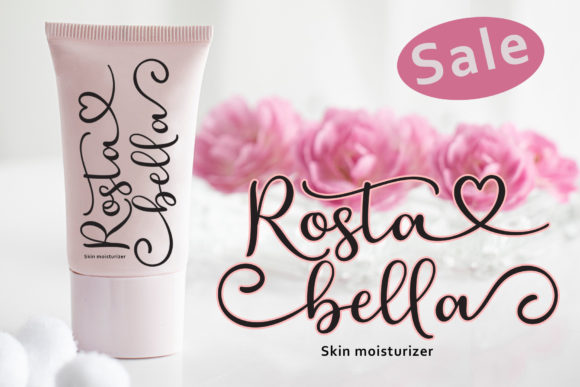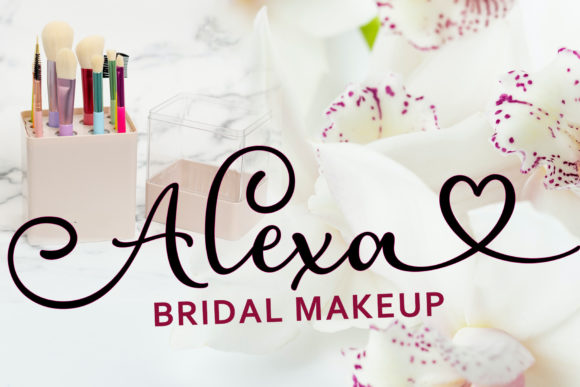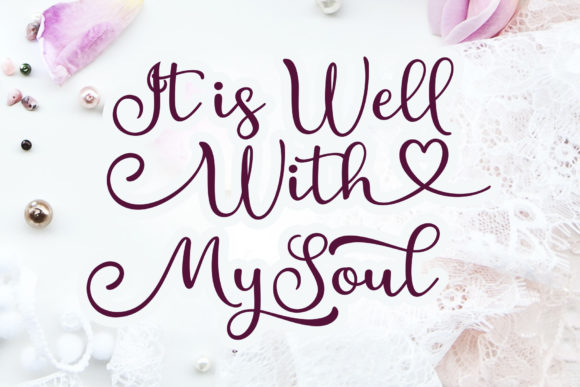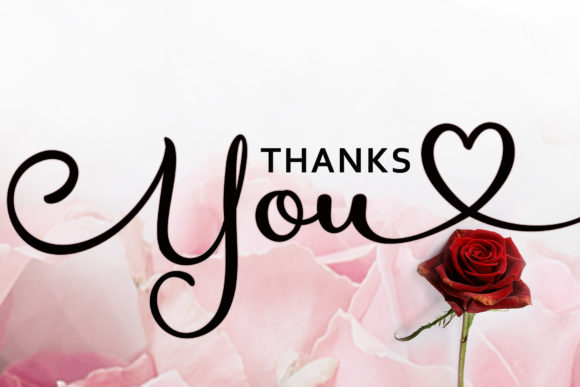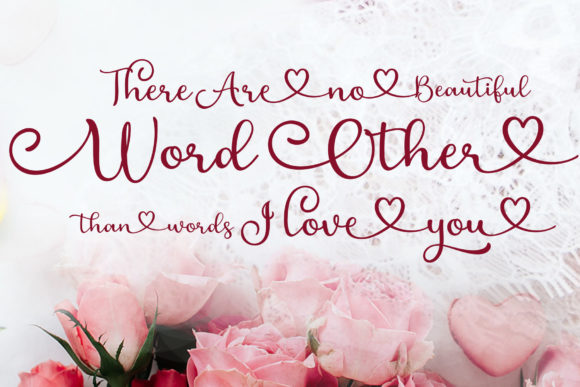
Hosle Script Font
About Hosle Script Font
Hosle is a charming script font. Fall for its ravishing style and use it to create gorgeous designs. This font is PUA encoded which means you can access all of the amazing glyphs and ligatures with ease!